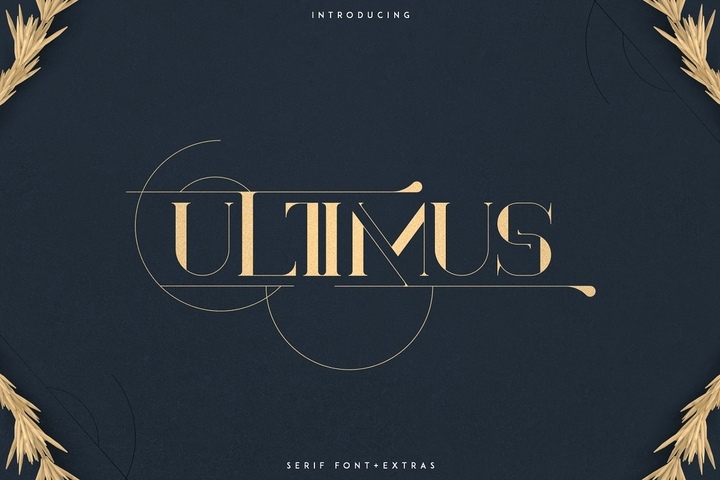
Ultimus Serif + Extras Font
Ultimus Serif Font is perfect for academic publications, literary magazines, classic book designs, scholarly journals, historical documentaries, museum catalogs, premium newspapers, legal documents, philosophical texts, and sophisticated editorial layouts.
What makes Ultimus Serif Font so exciting is its refined classical proportions combined with contemporary clarity that creates the perfect bridge between traditional typography heritage and modern readability standards. This typeface embodies intellectual sophistication through its elegant serifs and balanced letterforms that have been meticulously crafted to enhance reading comprehension while maintaining scholarly gravitas. The font's distinguished appeal lies in its ability to convey wisdom, authority, and academic excellence, making every text appear more credible and thoughtfully considered.
Ultimus Serif Font comes in multiple weights and styles including Light, Regular, Medium, Semibold, Bold, and their corresponding Italic versions, along with specialized features like small caps, old-style figures, and extensive language support for international academic and publishing applications.
Whether you're publishing academic research, designing literary collections, or creating prestigious editorial content, Ultimus Serif Font Free Download provides exceptional readability and intellectual authority. This distinguished typeface excels in long-form reading applications where comfort and comprehension are paramount, while maintaining its elegant character in display settings. The font's carefully balanced stroke weights and refined serif details create optimal reading rhythm that reduces eye strain during extended reading sessions.
Publishers and academic institutions consistently select Ultimus Serif Font for projects requiring scholarly credibility and reading excellence. Its classical foundation makes it particularly valuable for universities, research institutions, legal publications, and literary presses seeking to communicate intellectual rigor and traditional academic values. The font's time-tested proportions and contemporary refinements ensure that complex ideas are presented with clarity and dignity, while its comprehensive character set supports multilingual scholarly publishing and international academic collaboration.